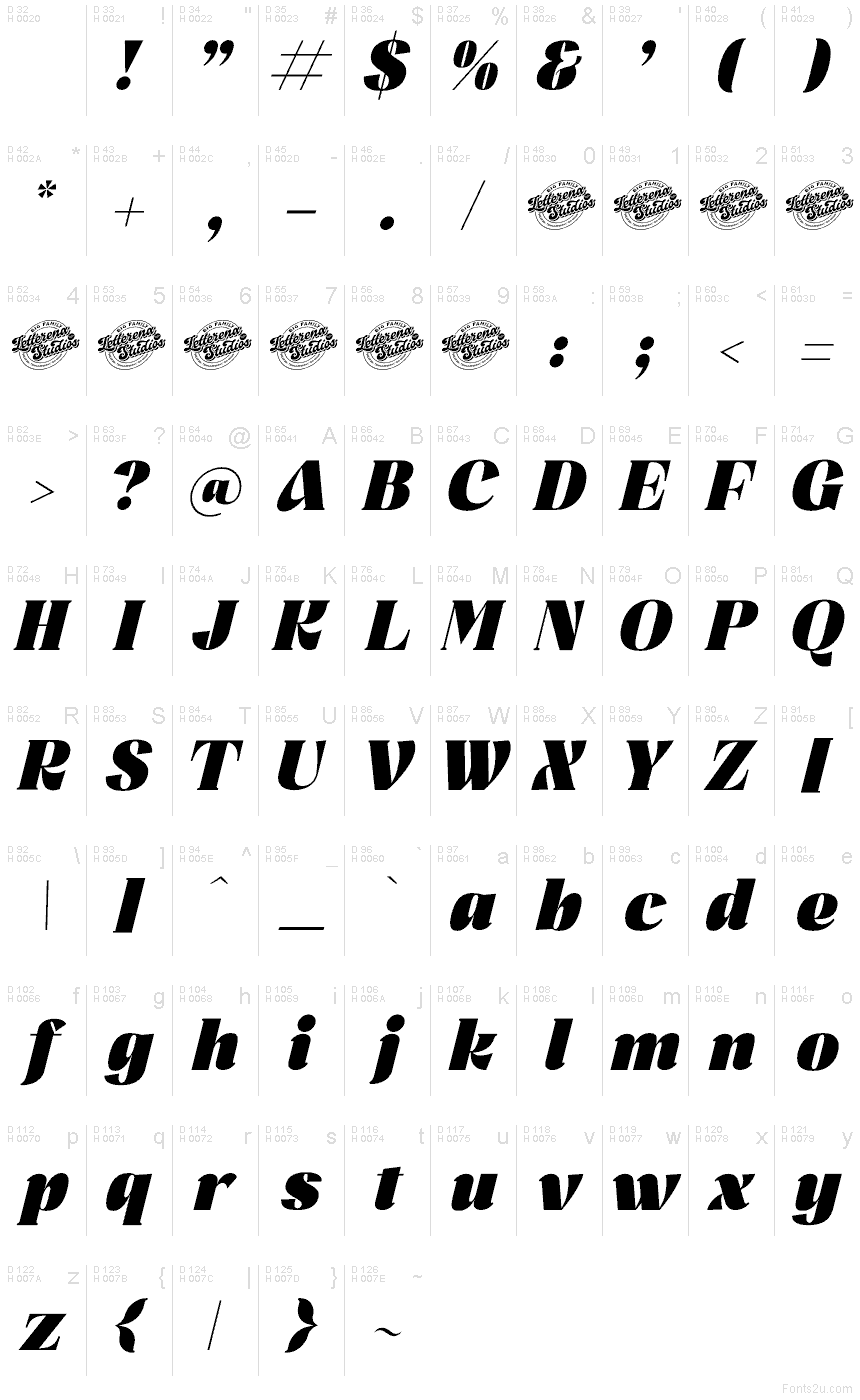
Misflen Radio DEMO VERSION Italic
Misflen Radio Italic font by Letterena Studios is an elegant bold serif font with a slanted orientation and sophisticated appearance. Expressive curves and vintage undertones give this typeface its unique, classic feel. The high contrast in its form enhances its timeless and refined look.
This free serif font is ideal for branding, editorial design, period-themed projects, retro-inspired advertising, and luxury product packaging. It's also well-suited for book covers, stationery design, labels, product tags, invitations, flyers, and logo designs.